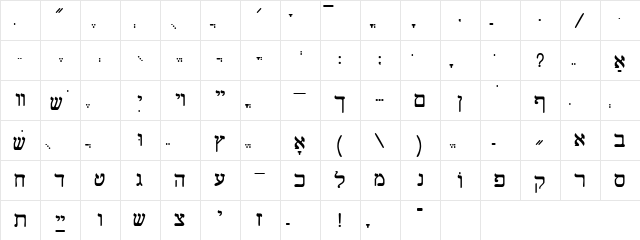
ExodusSSK Regular
Design Context for ExodusSSK Typeface
ExodusSSK is a composed and adaptable typeface that performs quietly and consistently across a wide range of design contexts.